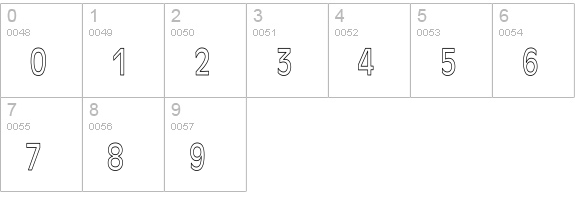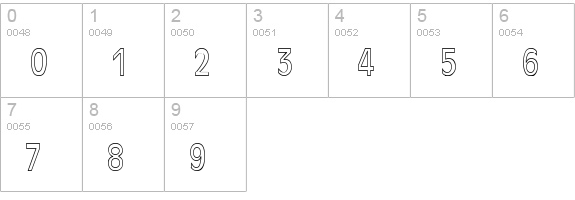
Antique-Olive HC Font Details
Antique-Olive HC font is a classic and elegant typeface that exudes sophistication and charm. With its unique design and timeless appeal, this font is perfect for adding a touch of vintage flair to your projects. Featuring clean lines and delicate curves, Antique-Olive HC font offers a sense of refinement and style that is perfect for a wide range of design applications. What makes Antique-Olive HC font even more appealing is that it is available to download for free at FontsMarket.com. This means that you can easily access this beautiful font and use it in your projects without any cost. Whether you are working on a branding project, creating invitations, or designing a website, Antique-Olive HC font is sure to elevate your designs and make them stand out. Don't miss out on the opportunity to enhance your projects with the timeless beauty of Antique-Olive HC font. Download it for free today at FontsMarket.com and bring a touch of vintage elegance to your designs.